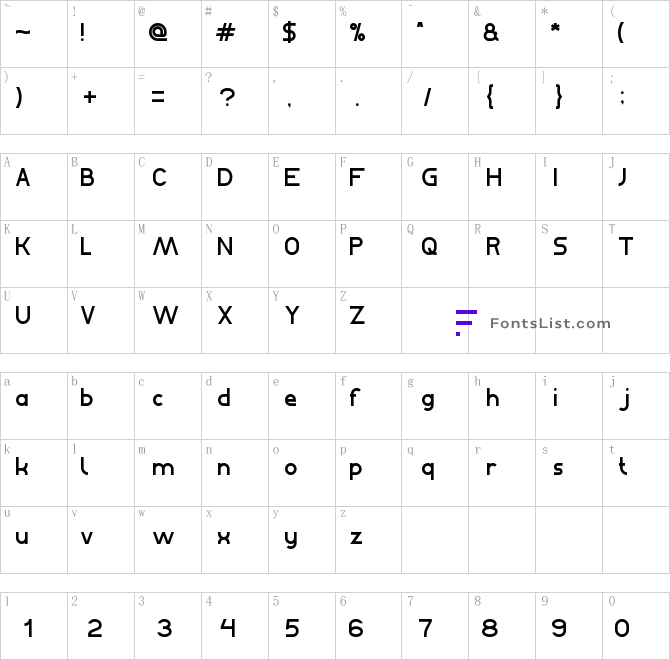
- Font Name:Bahasa Indonesia
Bahasa-Indonesia.ttf is a very beautiful artistic font, Bahasa-Indonesia.ttf is widely used in the design and printing of various books and pictures,Bahasa-Indonesia.ttf has a strong visual impact,Bahasa-Indonesia.ttf is a commonly used font in newspapers, magazines and books, and is used in posters, e-commerce Poster design, store design, logo design, font design and other fields.Bahasa-Indonesia.